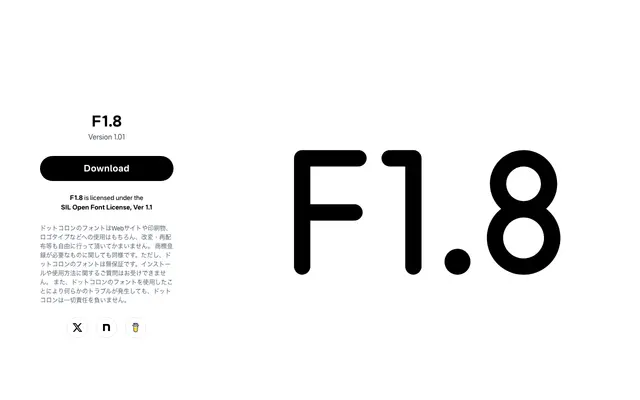
A monoline sans-serif from Dot Colon built on the principles of mechanical engraving lettering, drawing inspiration from Leica's typographic style.
Where its sibling F5.6 applies optical corrections, F1.8 pursues a purely mechanical aesthetic — uniform stroke widths throughout, designed to replicate what machine engraving can produce. The design covers both uppercase and lowercase for general usability, and includes experimental alternates and ligatures accessible via OpenType features in software such as Adobe CC. Released under the SIL Open Font License, allowing modification and redistribution freely.
F1.8 is a monoline sans-serif designed around the rules of mechanical engraving lettering, producing uniform stroke widths without optical correction — consistent with geometric or technical sans classification.